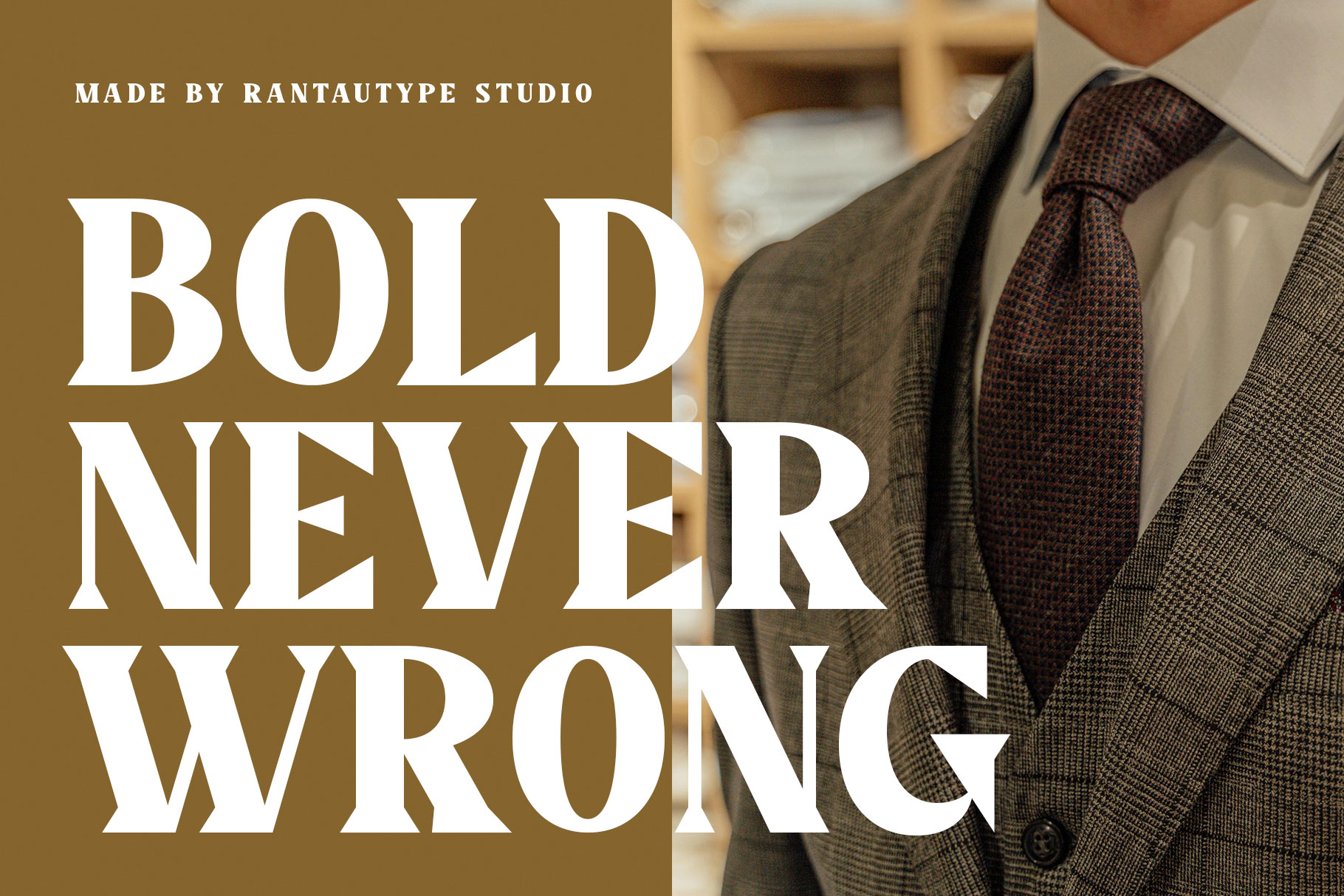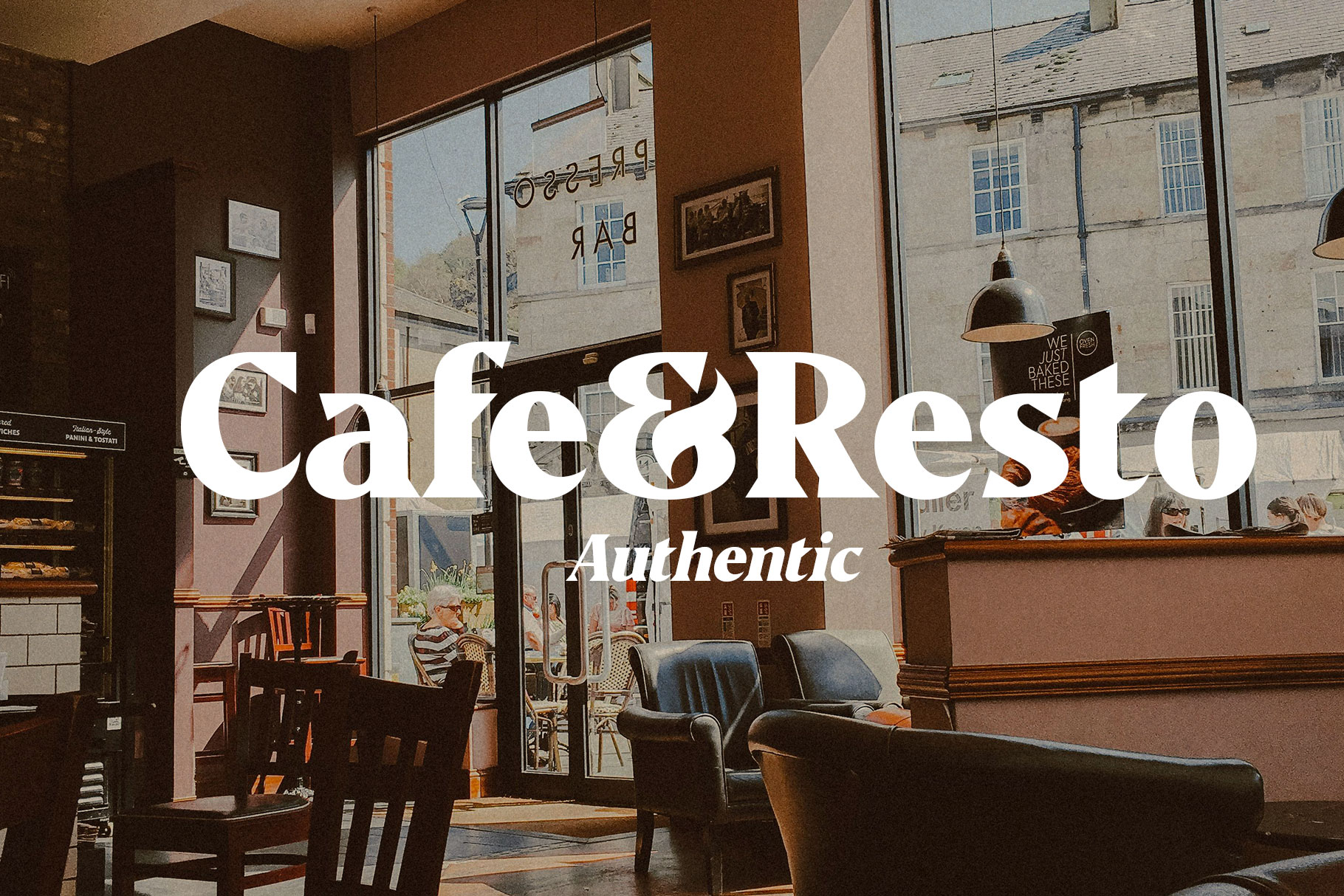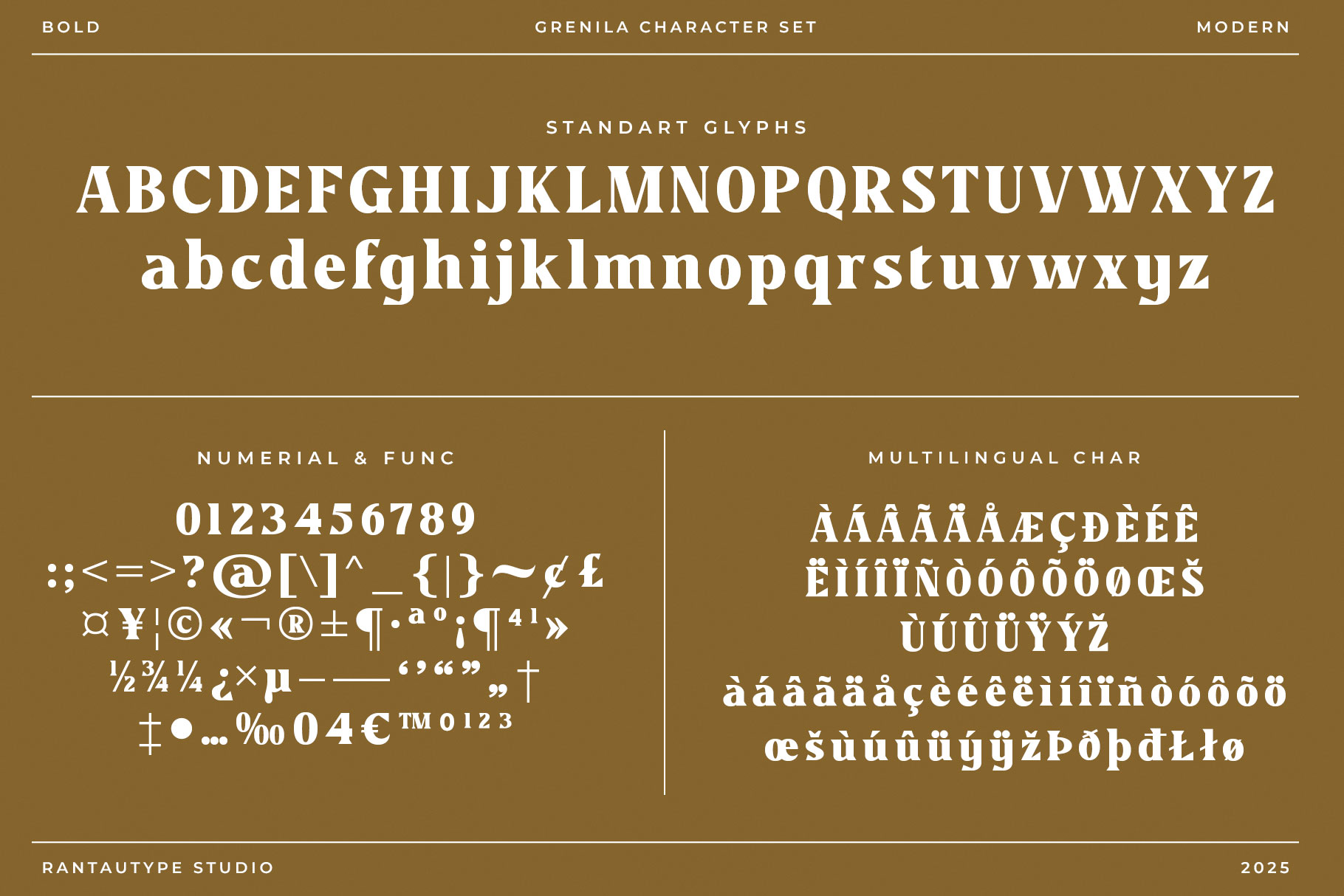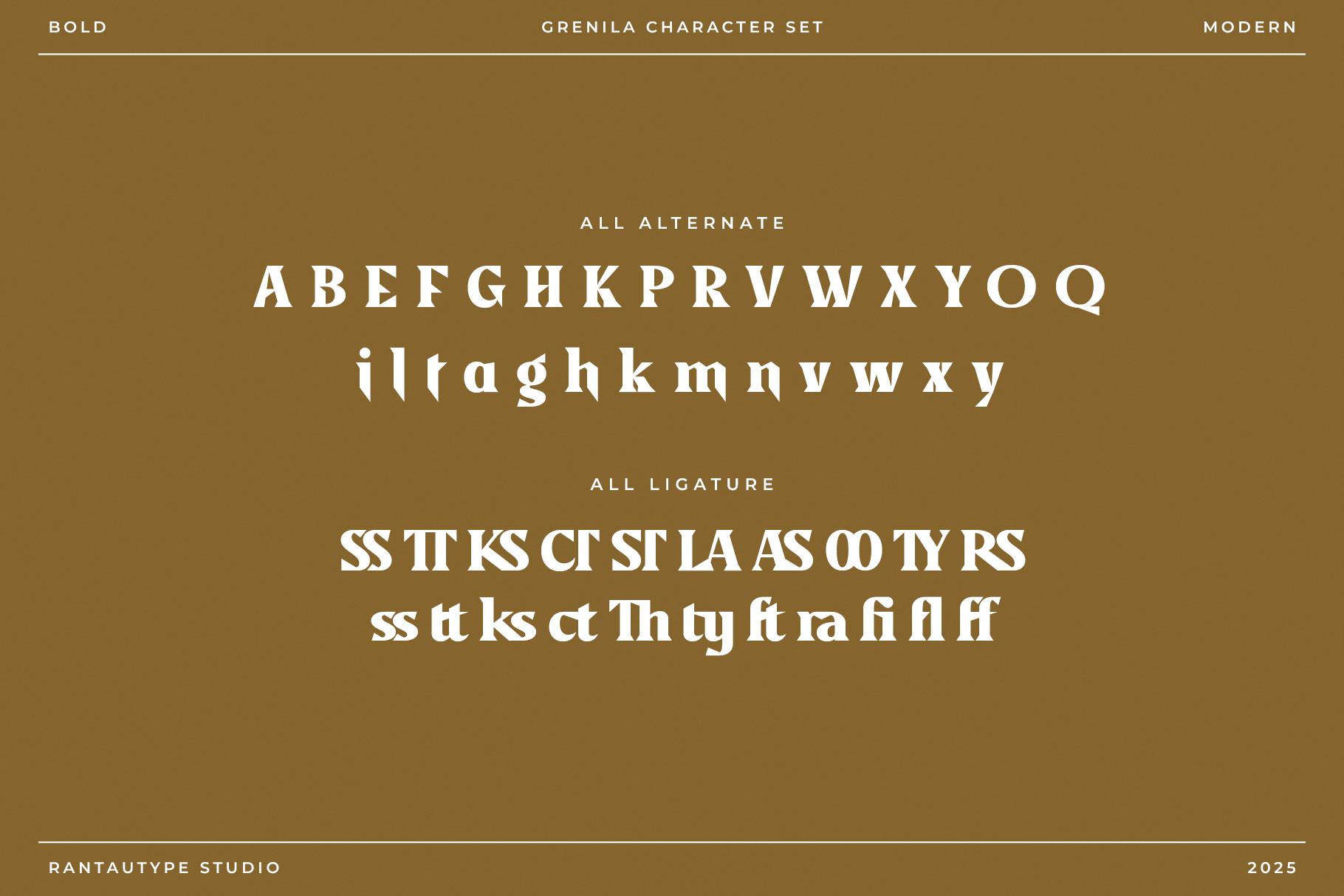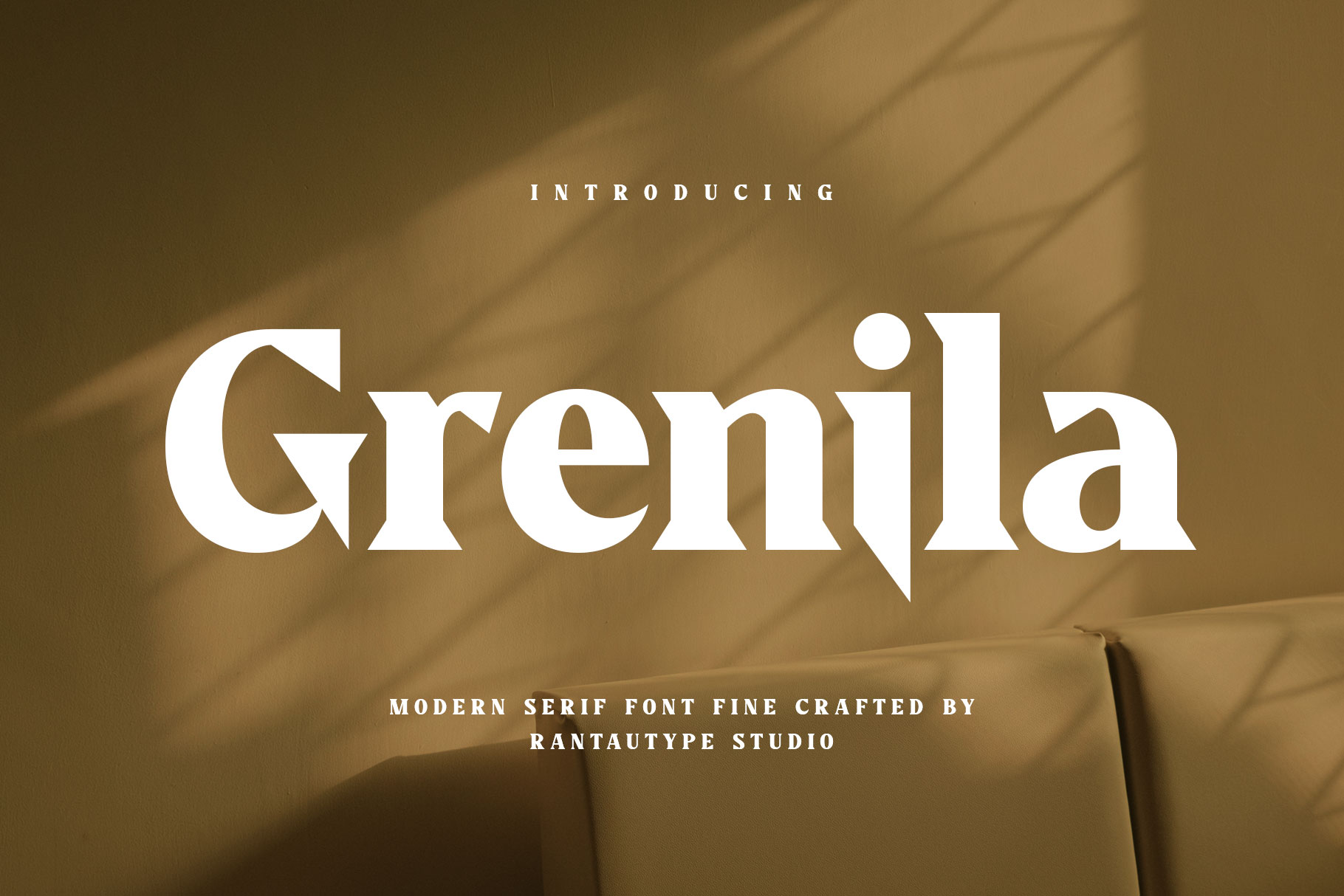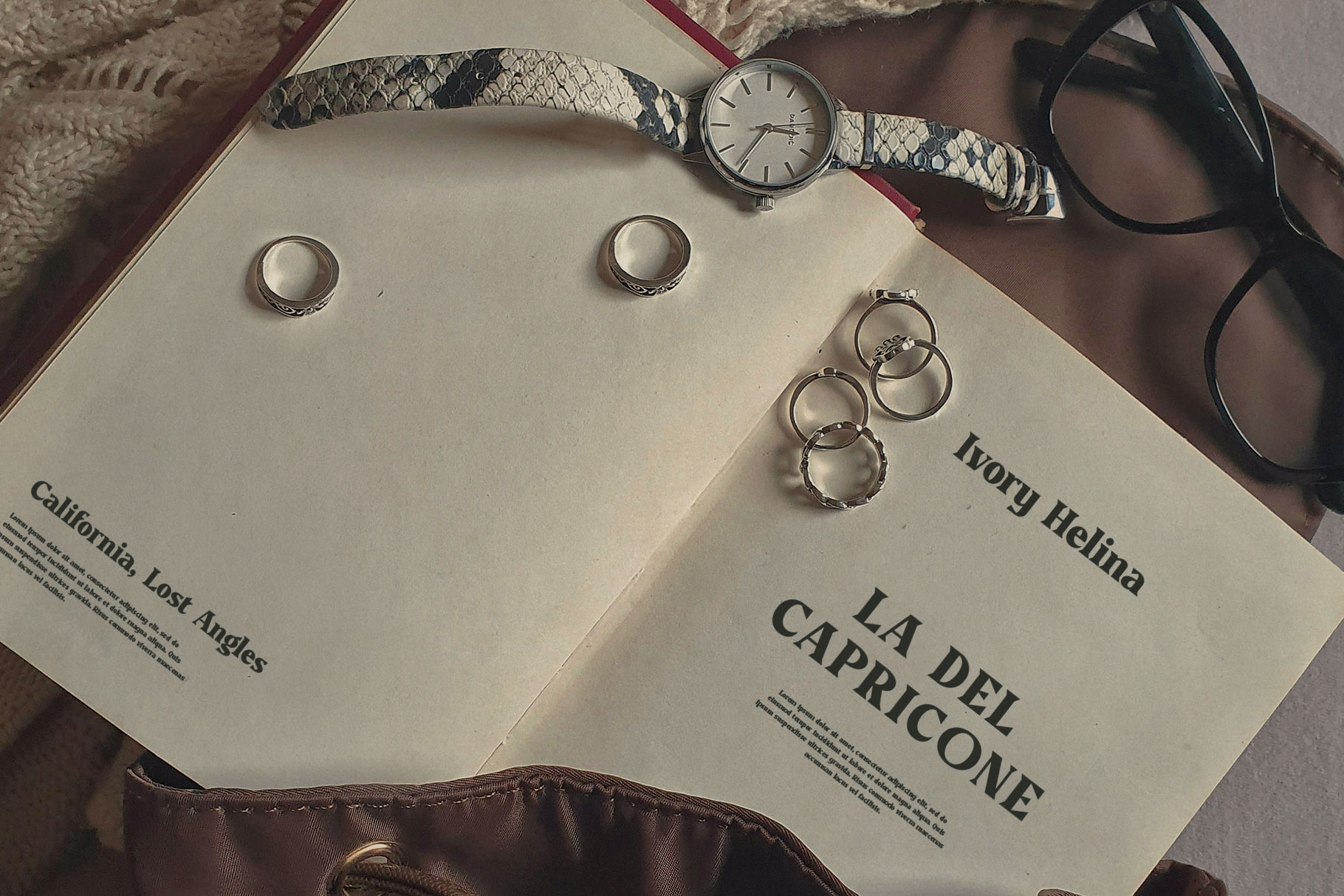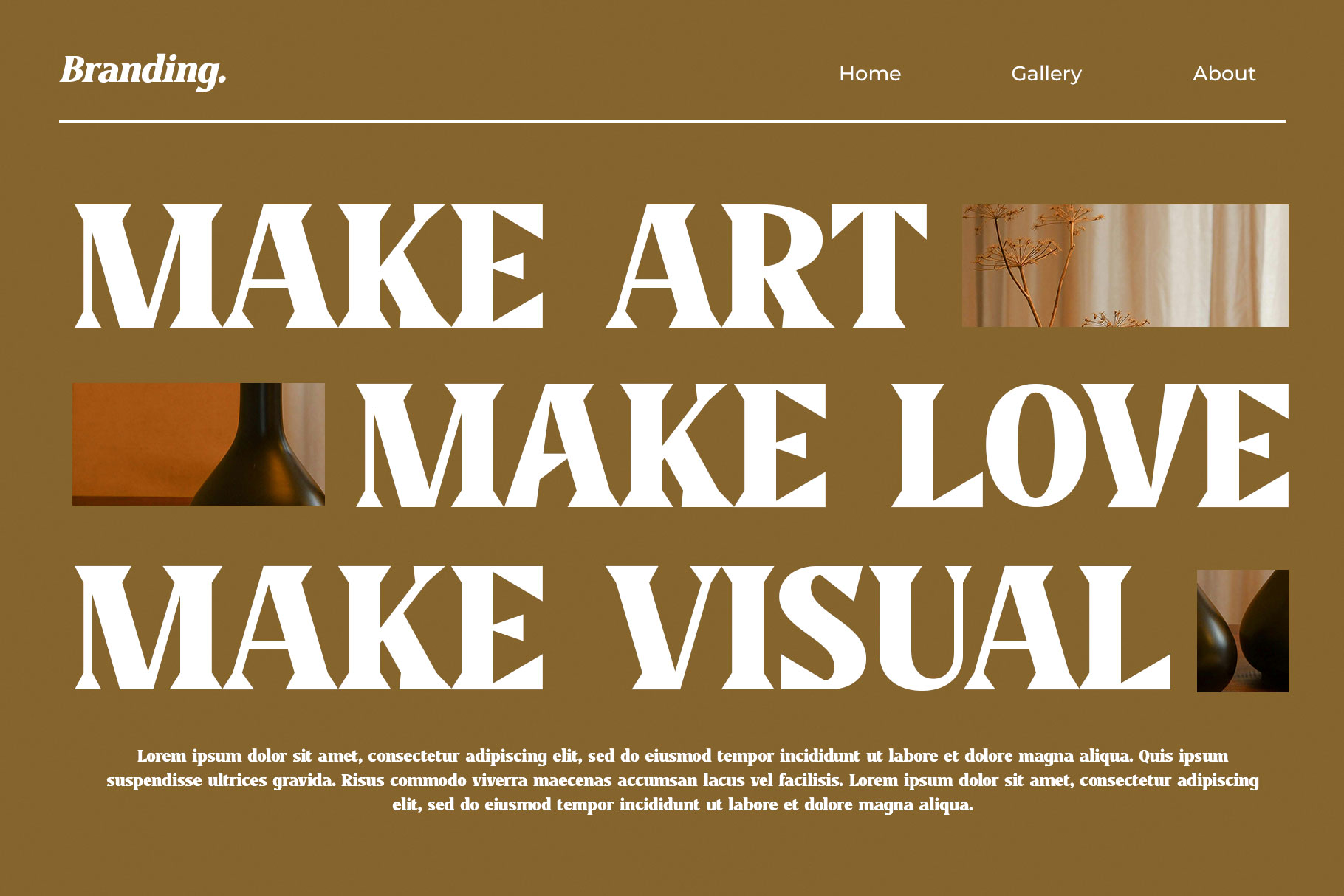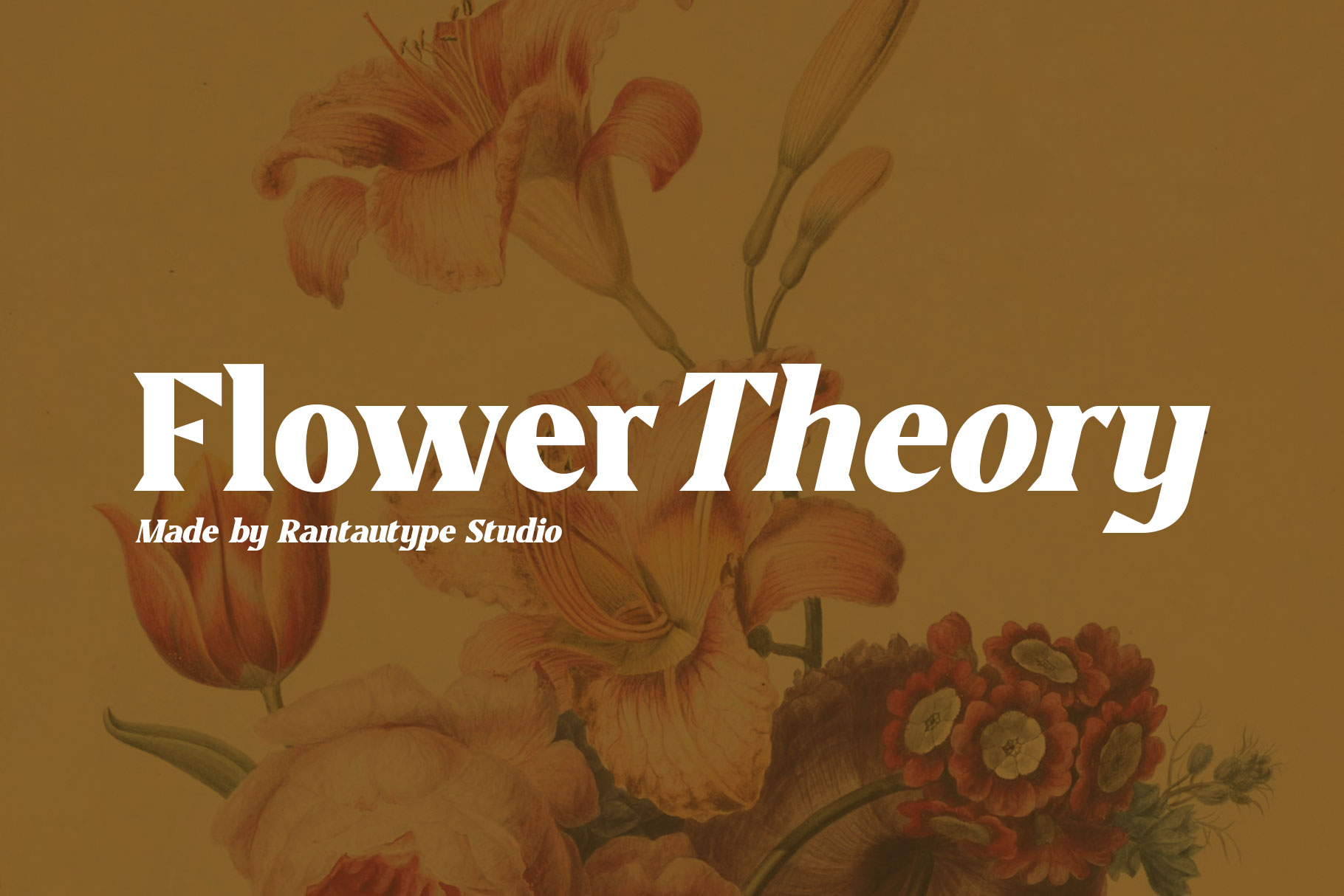
Grenila Modern Serif Font
Grenila is modern serif font with authentic decorative combination. Grenila bring bold shape embrace grace and luxorious. Grenila is a perfectly choice for any creative endeavor, chic, lifestyle design such as logotype, advertisements, watermark on photography, stationery, branding project, display and magazine, invitation, corporate brand, product design, label, business project and many other project with retro touch.